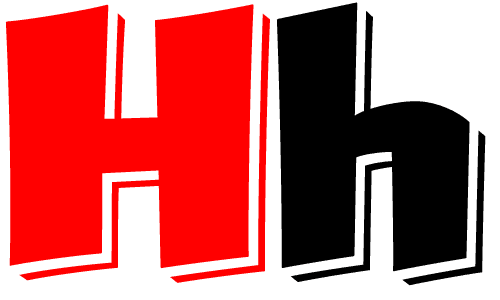
FRISCO_REMIX: H/h
Jim
Parkinson
These letters represent
my fondness for Showcard Lettering, the whimsical and irreverent handlettering
popular in the mid-20th century.
I have designed several dozen typefaces that attempt to capture the
spirit of this lettering genre. |